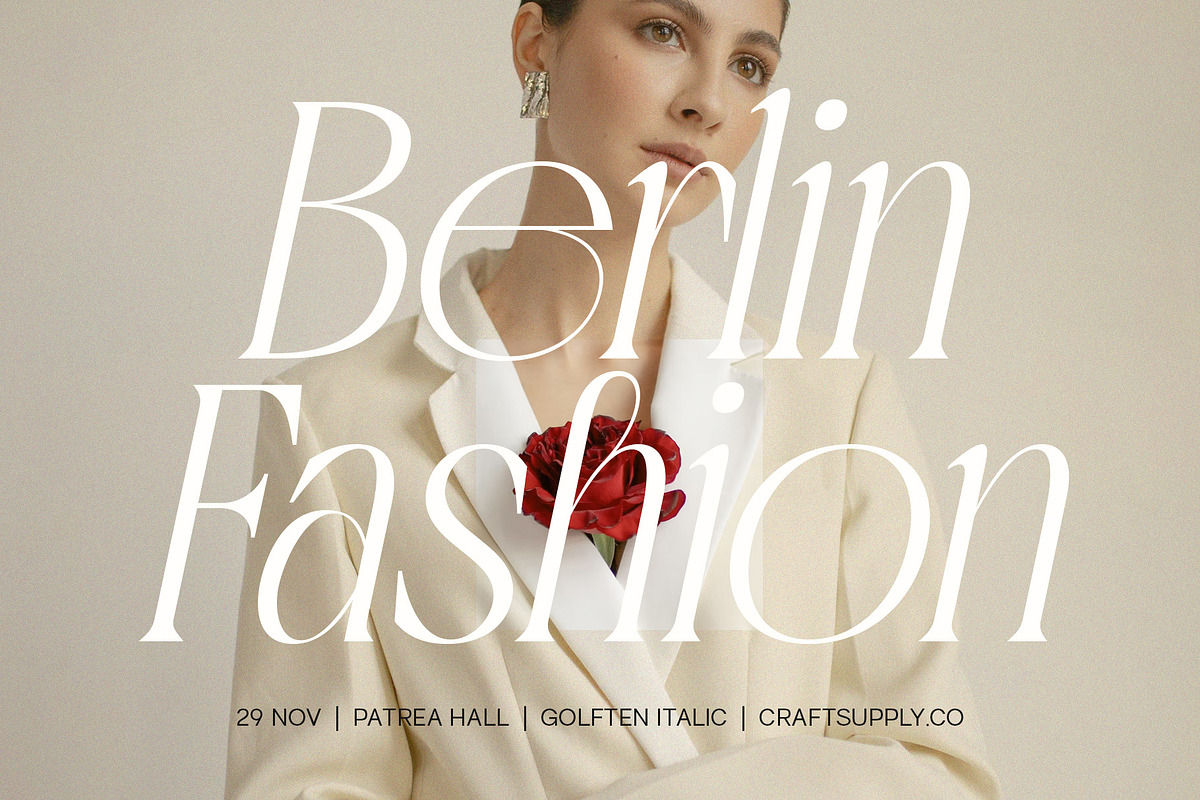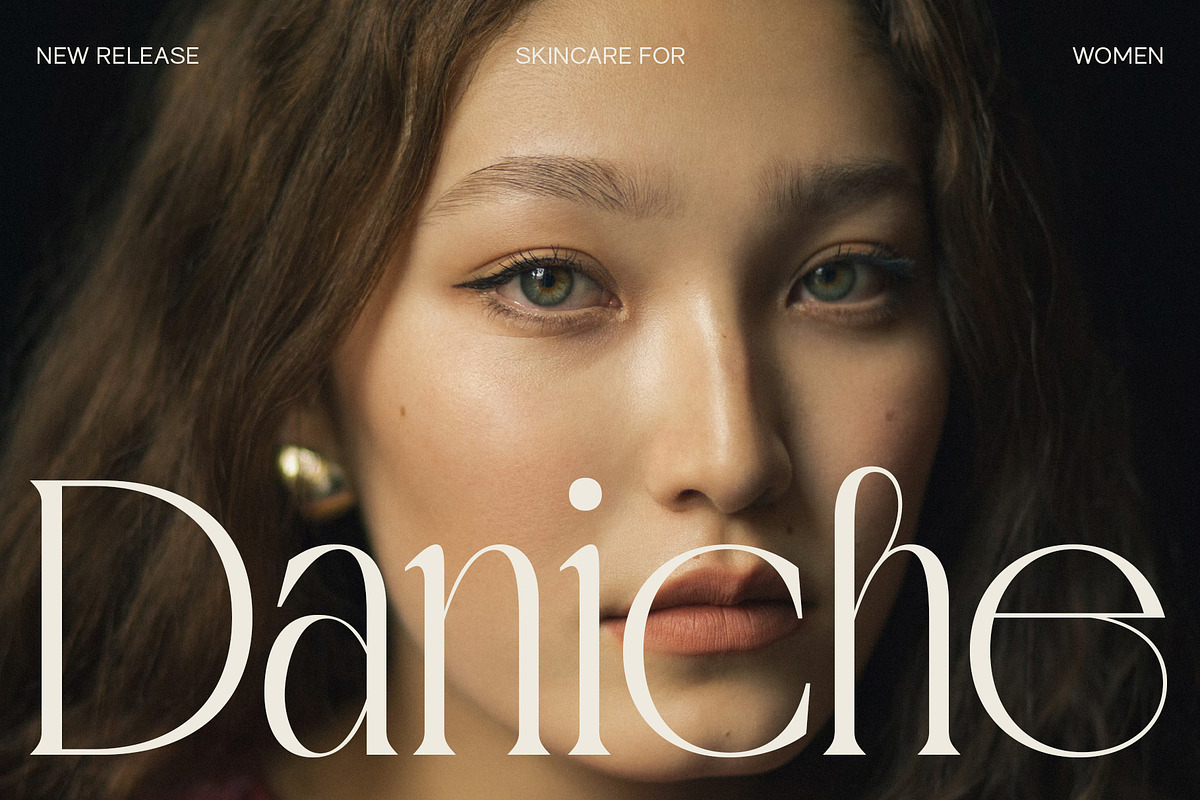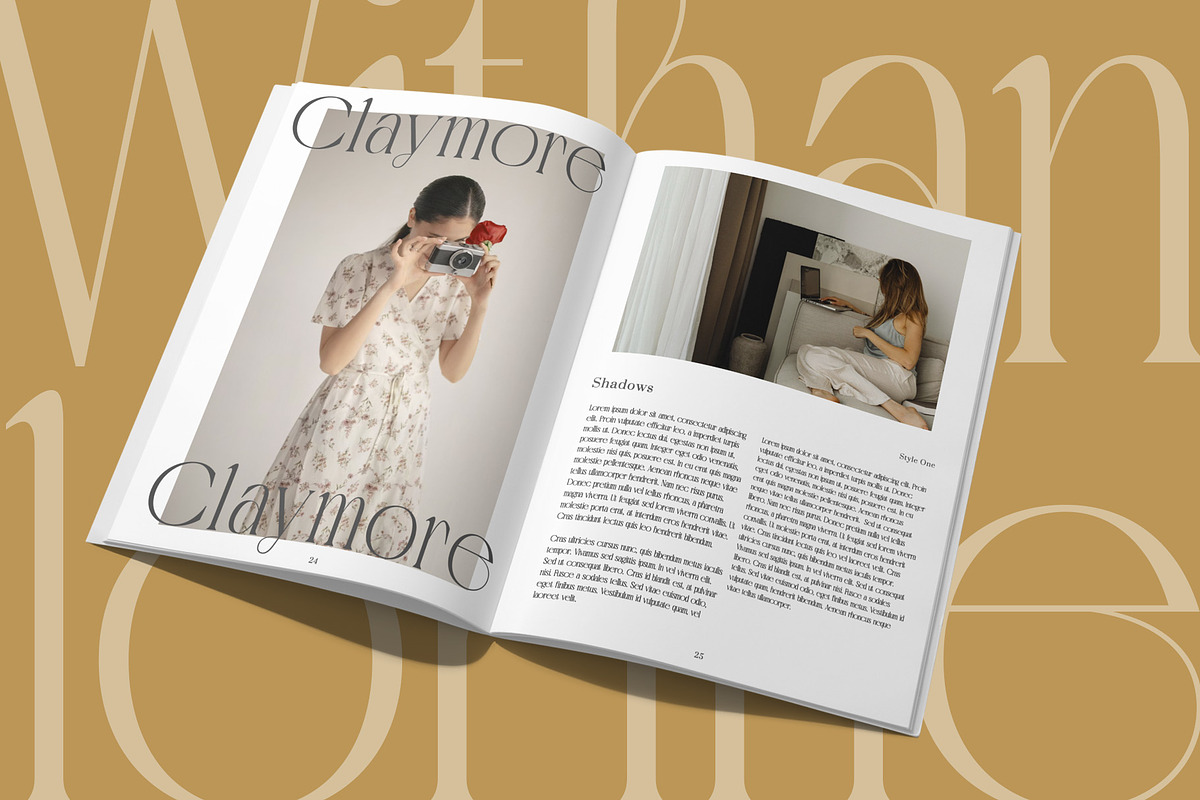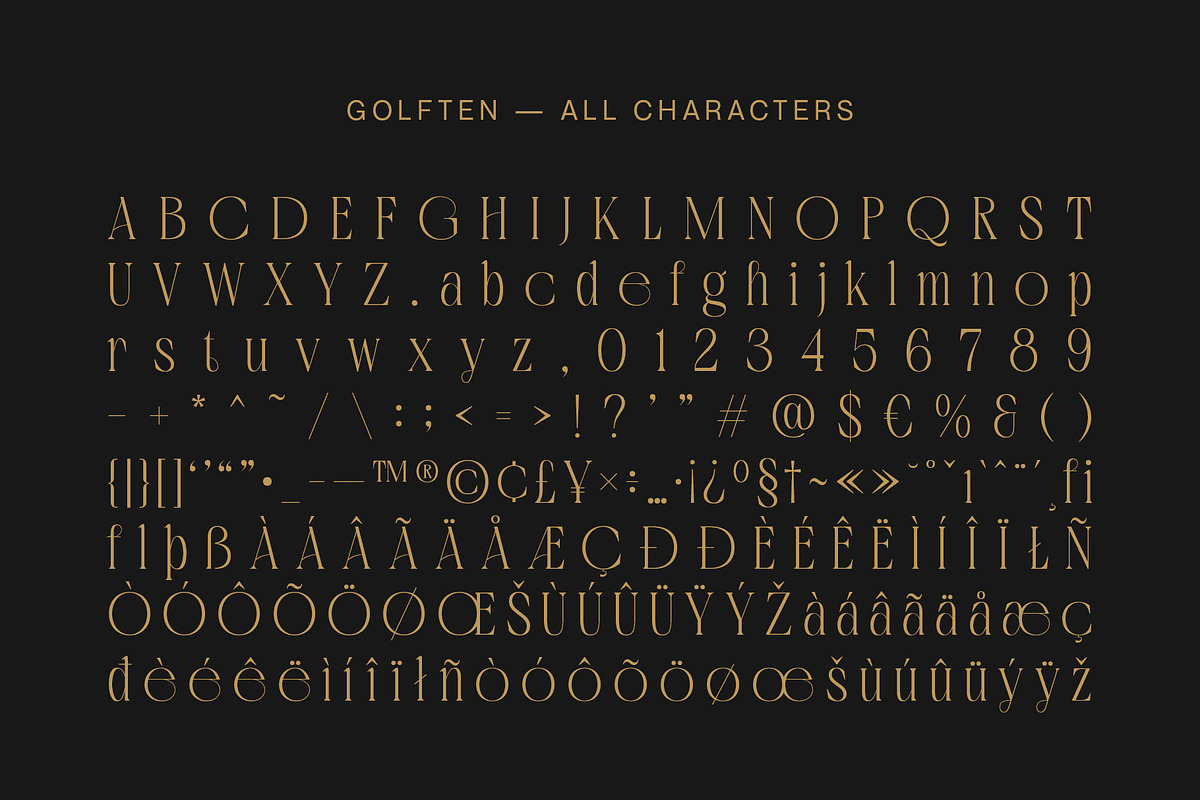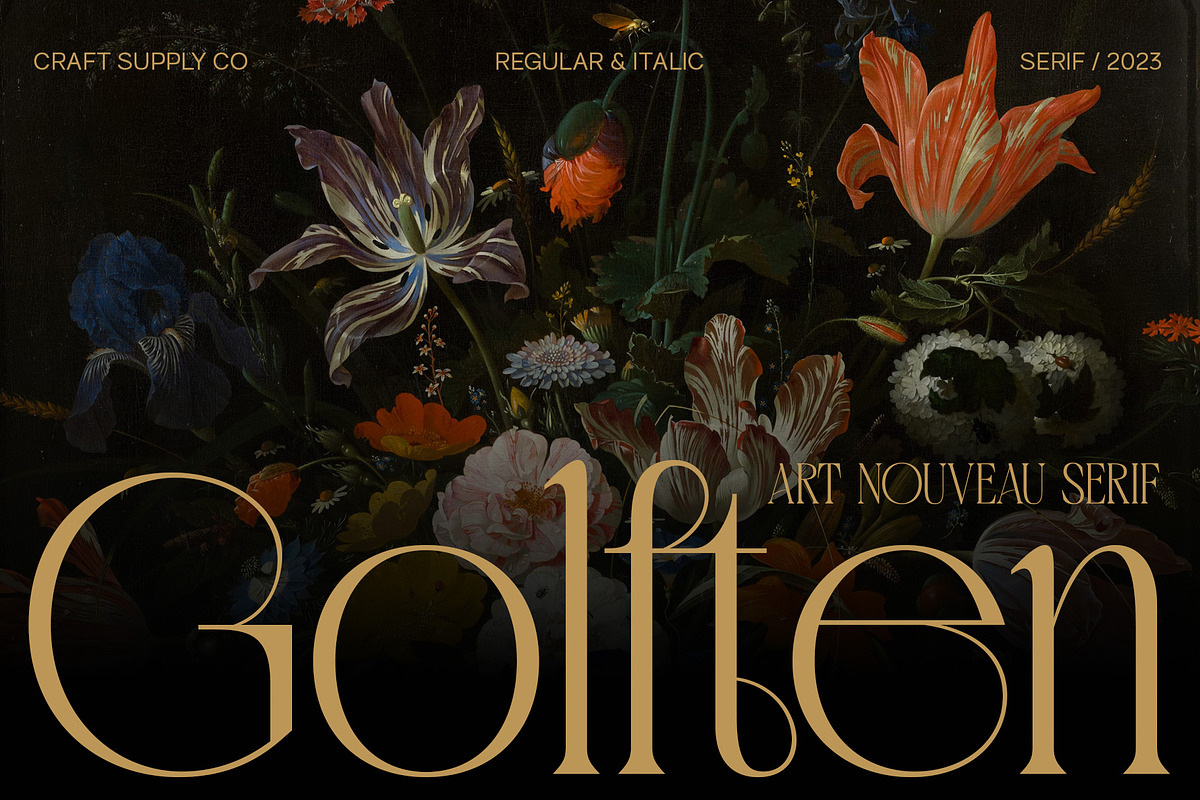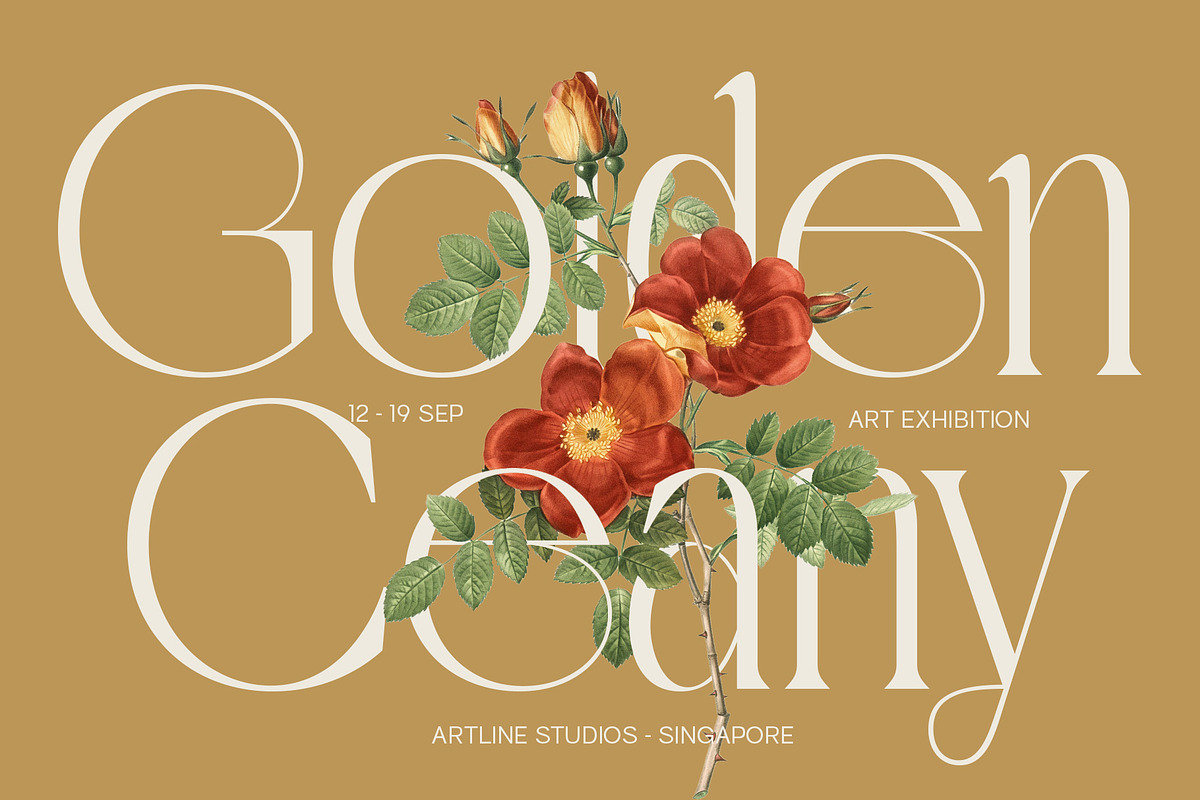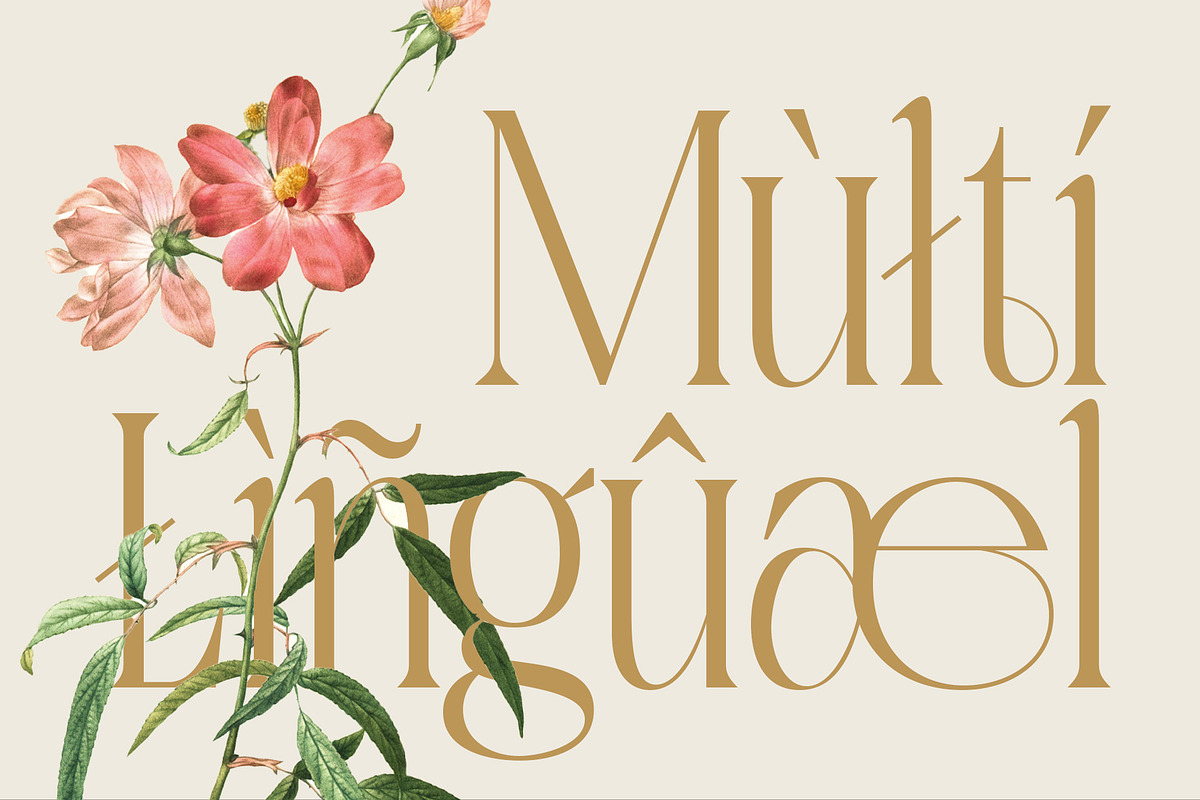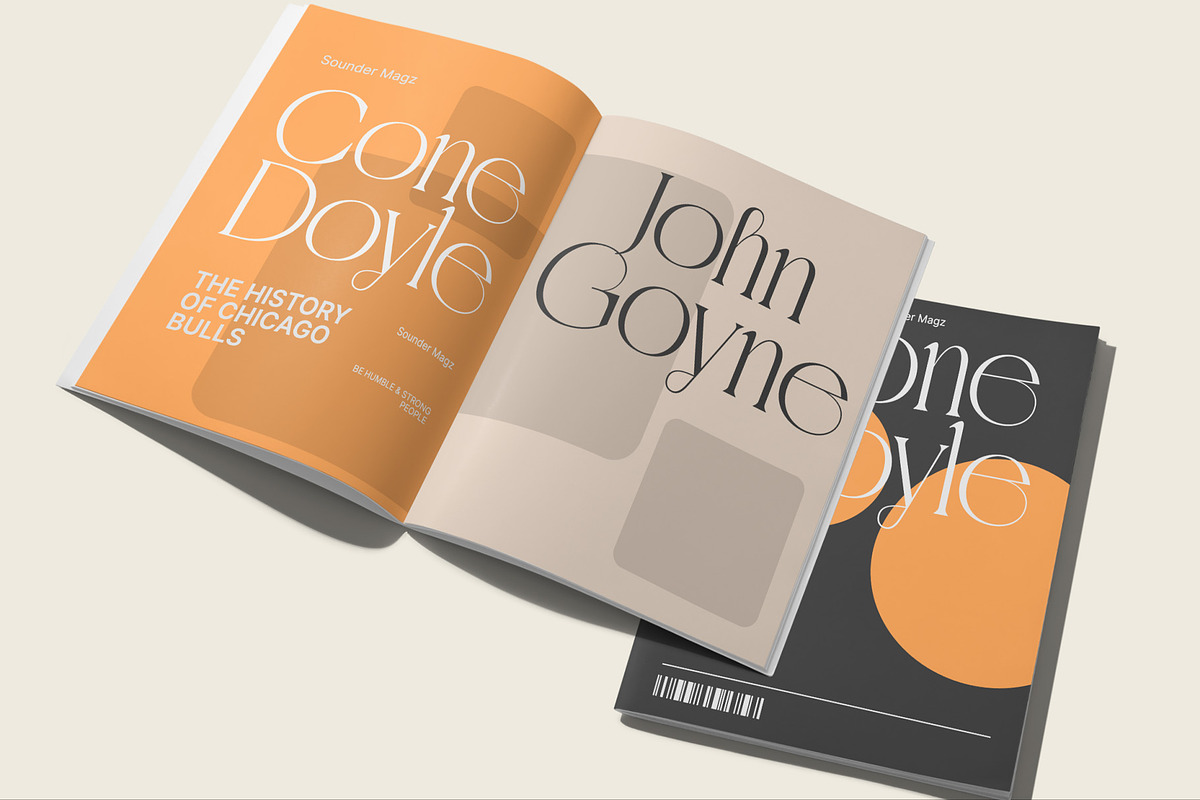
Golften – Art Noveau Serif
Golften – Art Nouveau Serif Font: Where Elegance Meets Harmony
In the world of typography, Golften – Art Nouveau Serif Font stands as an epitome of elegance. It gracefully channels the beautiful and harmonious flow, drawing inspiration from the Art Nouveau style. Let’s delve into why Golften is an exceptional choice for those seeking refined and graceful design.
Elegance at Its Core
First and foremost, Golften exudes elegance through its graceful serifs and harmonious lines. It encapsulates the very essence of Art Nouveau. Moreover, its flowing curves and intricate details create a captivating visual experience, making it the ideal choice for designers aiming to create visually stunning projects.
Versatile Beauty
What sets Golften apart is its versatility, which knows no bounds. It seamlessly adapts to various design projects. Whether you’re crafting wedding invitations, establishing elegant branding, or designing artistic posters, Golften adds an exquisite touch that elevates your work. Furthermore, this font’s adaptability makes it suitable for a wide range of creative endeavors.
Inspired by Art Nouveau
Golften draws inspiration from the Art Nouveau movement, celebrated for its organic forms and ornate aesthetics. This font mirrors those principles, making it a perfect choice for projects aiming to capture the timeless allure of this influential style. With Golften, you can effortlessly infuse your designs with the spirit of Art Nouveau.
A Complete Typeface
To meet your diverse needs, Golften offers a comprehensive character set, encompassing both uppercase and lowercase letters, numerals, and punctuation. This versatility ensures your message is conveyed with elegance and grace, leaving a lasting impression on your audience. Furthermore, it enhances readability, making it an ideal choice for various communication needs.
User-Friendly Design
In Conclusion
With Golften – Art Nouveau Serif Font, you have a typeface that epitomizes elegance and the timeless allure of Art Nouveau. Whether you’re creating a wedding invitation, establishing an elegant brand, or designing an exquisite poster, Golften adds a touch of sophistication that ensures your work stands out and captivates your audience.
- Golften Regular
- Golften Italic